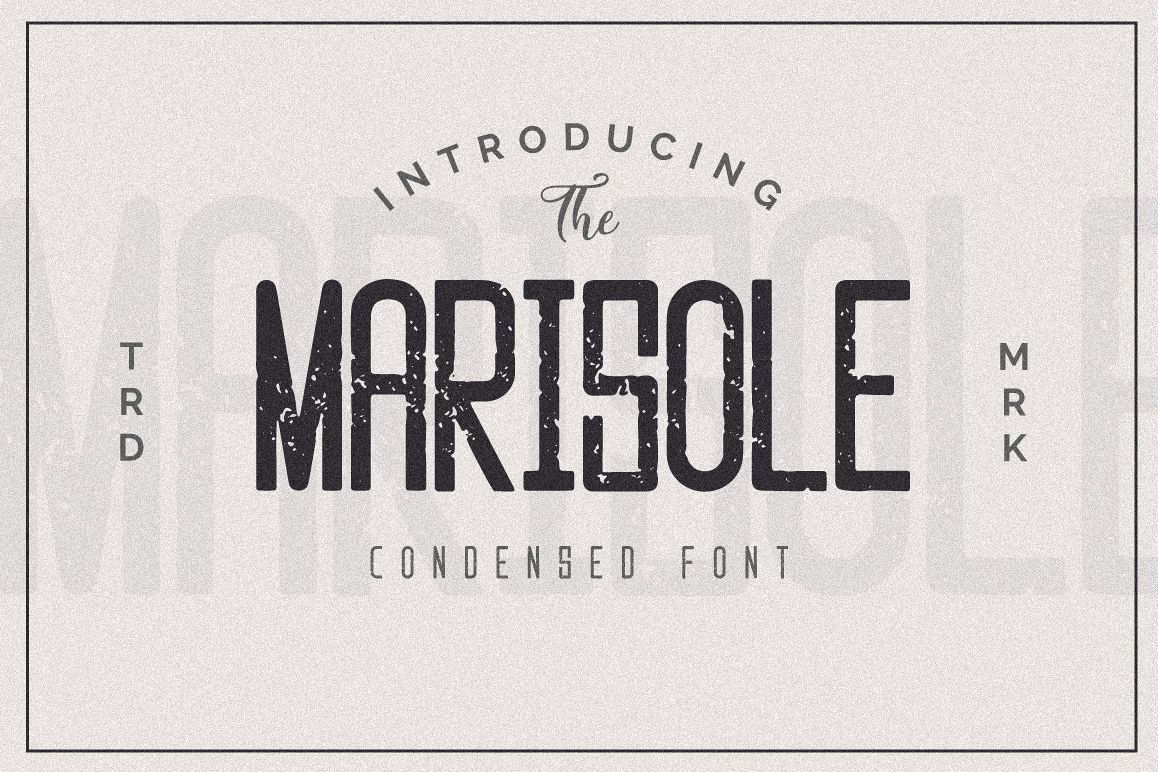
Marisole Condensed Font
MARISOLE-Regular
Marisole is condensed sans serif textured font. Each letters have a different textured and bold giving a more rugged vibe for whisky packaging.
This font is a versatile sans serif typeface that gives a vintage aesthetic. It's perfect for whisky label, alcohol label, liquor label, cosmetic packaging and more. It's give you the retro feeling everytime you use it.